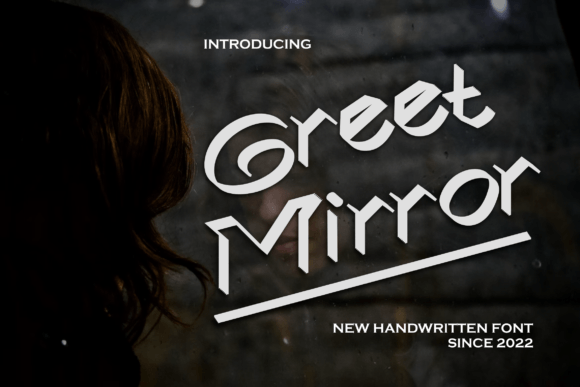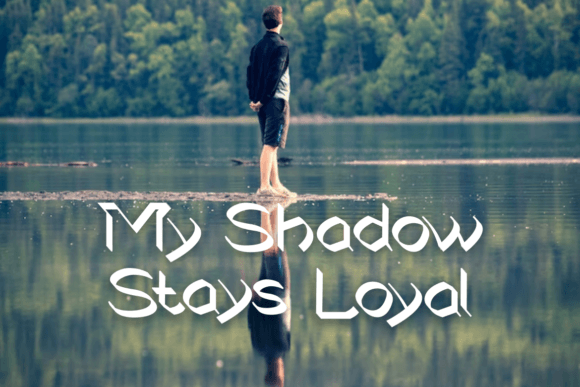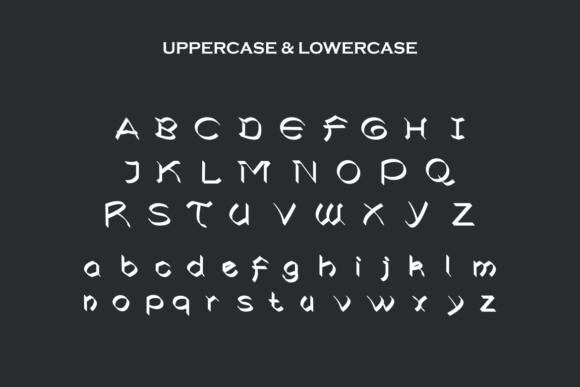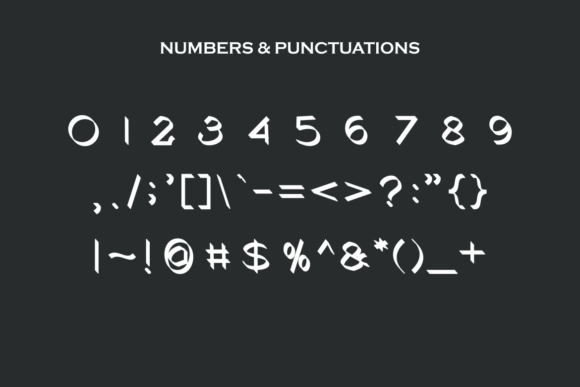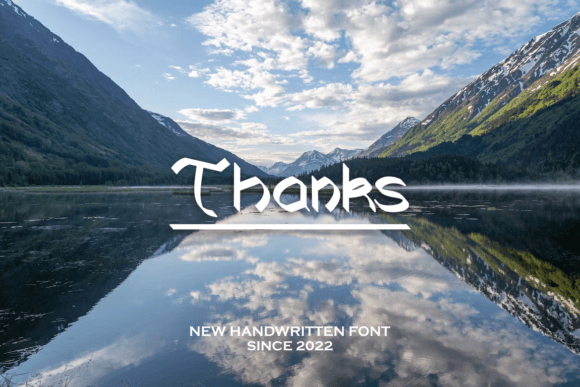
Greetmirror Font
Greetmirror Font: Playful Handwriting for Creative Designs
“Greetmirror” is a fun and unique handwritten font that brings playfulness and creativity to your design projects. Its meticulous craftsmanship makes it a versatile choice for various creative applications.
Key Features of Greetmirror Font
• Playful Style: Greetmirror adds a whimsical and creative feel to designs.
• Unique Characters: Detailed and fun letterforms create engaging typography.
• Versatile Use: Suitable for many projects, from branding to advertising.
Fun Branding and Logo Design
Greetmirror’s unique style is ideal for creating memorable logo designs and branding materials that stand out.
Playful Greeting Cards and Invitations
Use Greetmirror to design charming greeting cards and invitations that convey creativity and warmth.
Engaging Digital Content
The font’s fun nature makes it perfect for creating eye-catching social media graphics and digital content.
Why Choose Greetmirror Font?
Greetmirror offers more than just playful letters. Here’s why it stands out:
• Enhances overall aesthetics with its detailed and imaginative style
• Conveys a sense of playfulness and originality effectively
• Adds a touch of uniqueness and creativity to designs
By using Greetmirror, you open up new design possibilities. Its fun style works well in many contexts, from poster designs to website headers. The font’s ability to convey whimsy can inspire creative ideas and help you approach projects from a fresh, imaginative perspective.
If you’re looking for a font that combines fun with uniqueness, Greetmirror is an excellent choice. It’s perfect for adding a touch of playfulness to your work, especially for projects that need a whimsical, engaging feel.
Explore how Greetmirror can transform your designs. From advertising materials to personal creations, this font brings a fun and imaginative quality to your work.